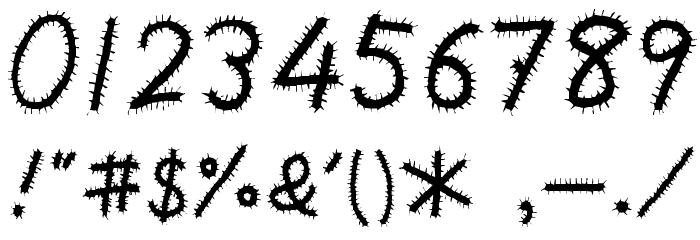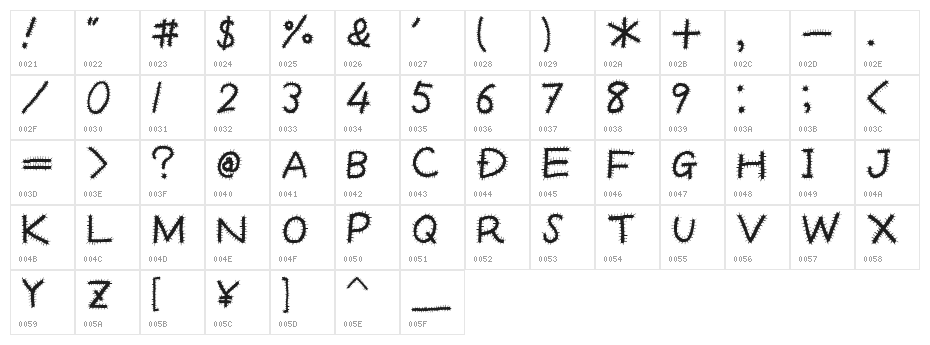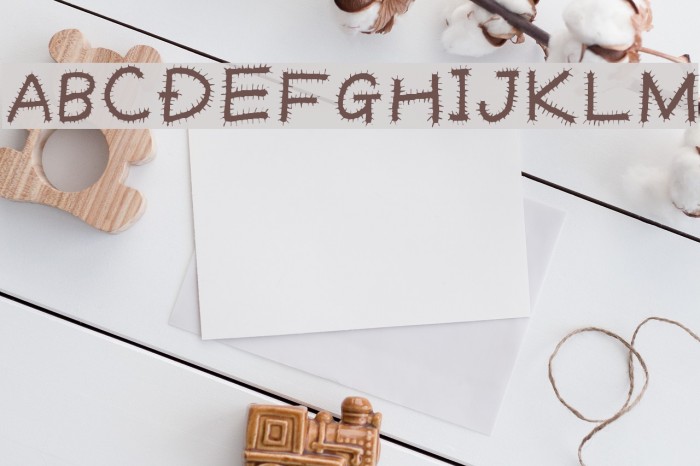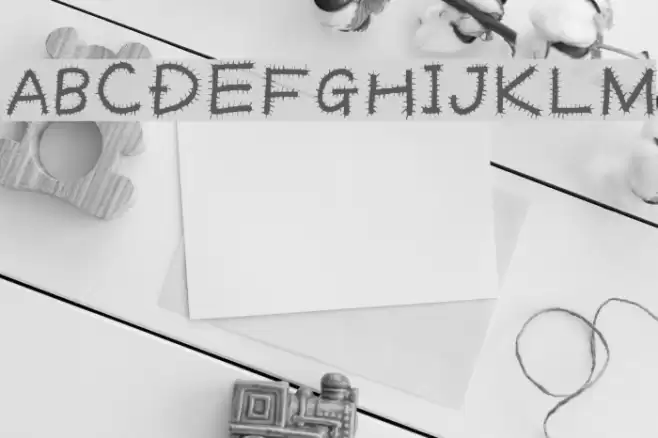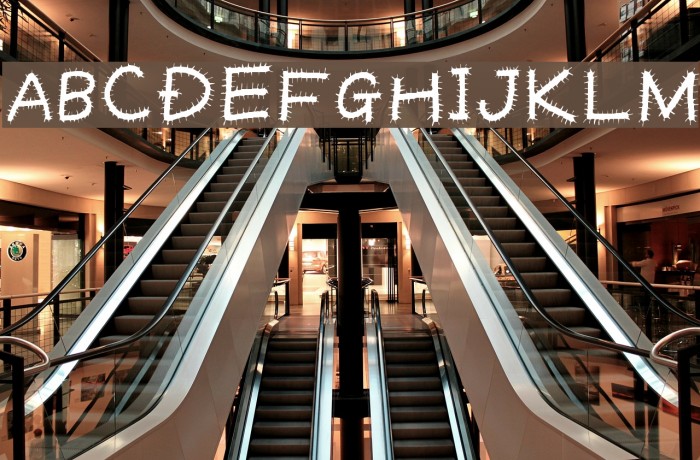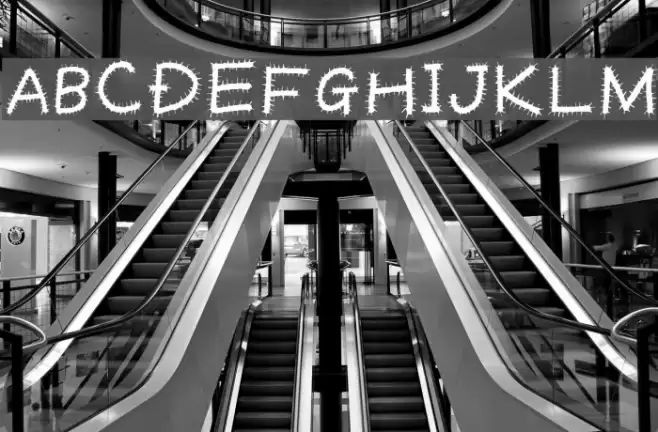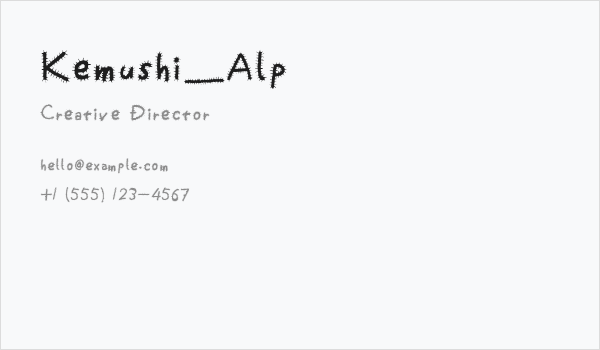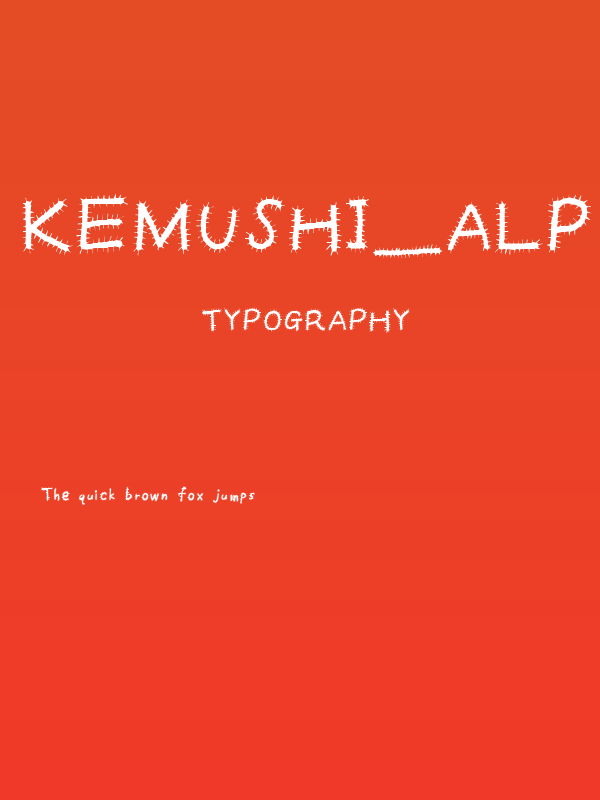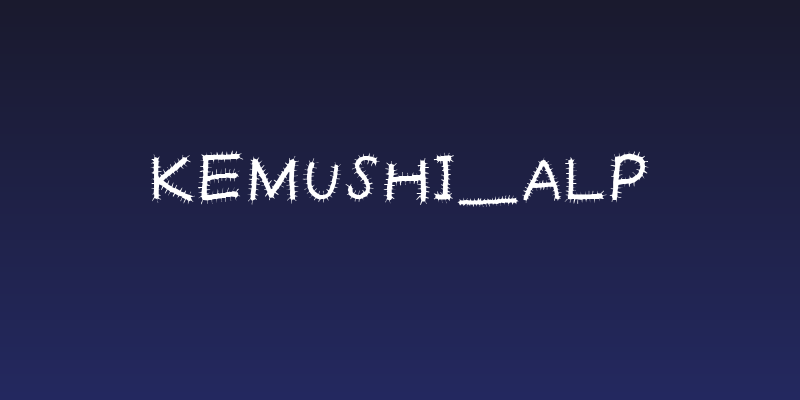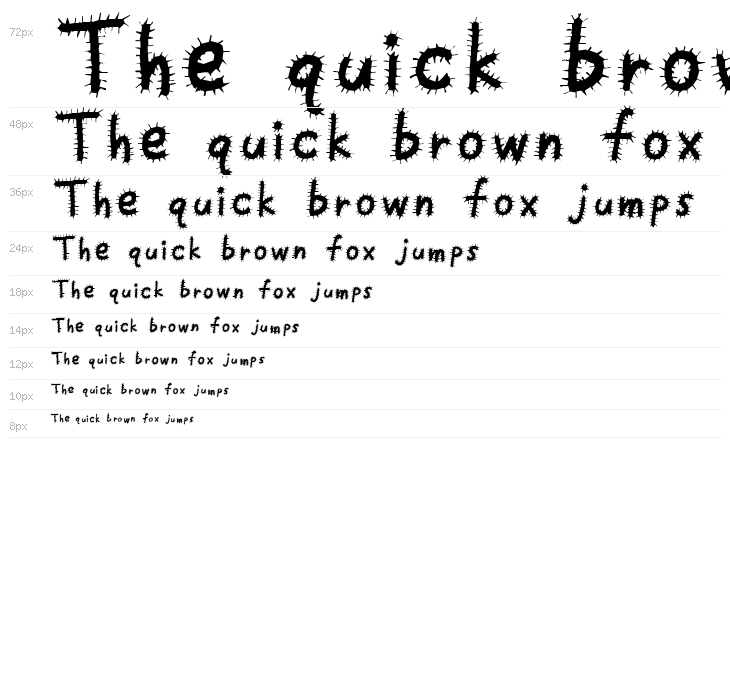
Kemushi_Alp Font
Kemushi_Alp Description
This font features a unique and playful design with a spiky, caterpillar-like texture adorning each character. The letters are bold and slightly irregular, giving them a hand-drawn appearance. The uppercase and lowercase letters maintain a consistent style, with rounded edges and whimsical spikes that add a touch of eccentricity. Numbers and special characters follow the same design principles, ensuring a cohesive look across all glyphs. This font's distinctive style makes it stand out, perfect for creative projects that require a fun and eye-catching typeface.
| Proposed Projects | Ideal for children's book covers, Halloween-themed designs, quirky branding, and playful posters. |